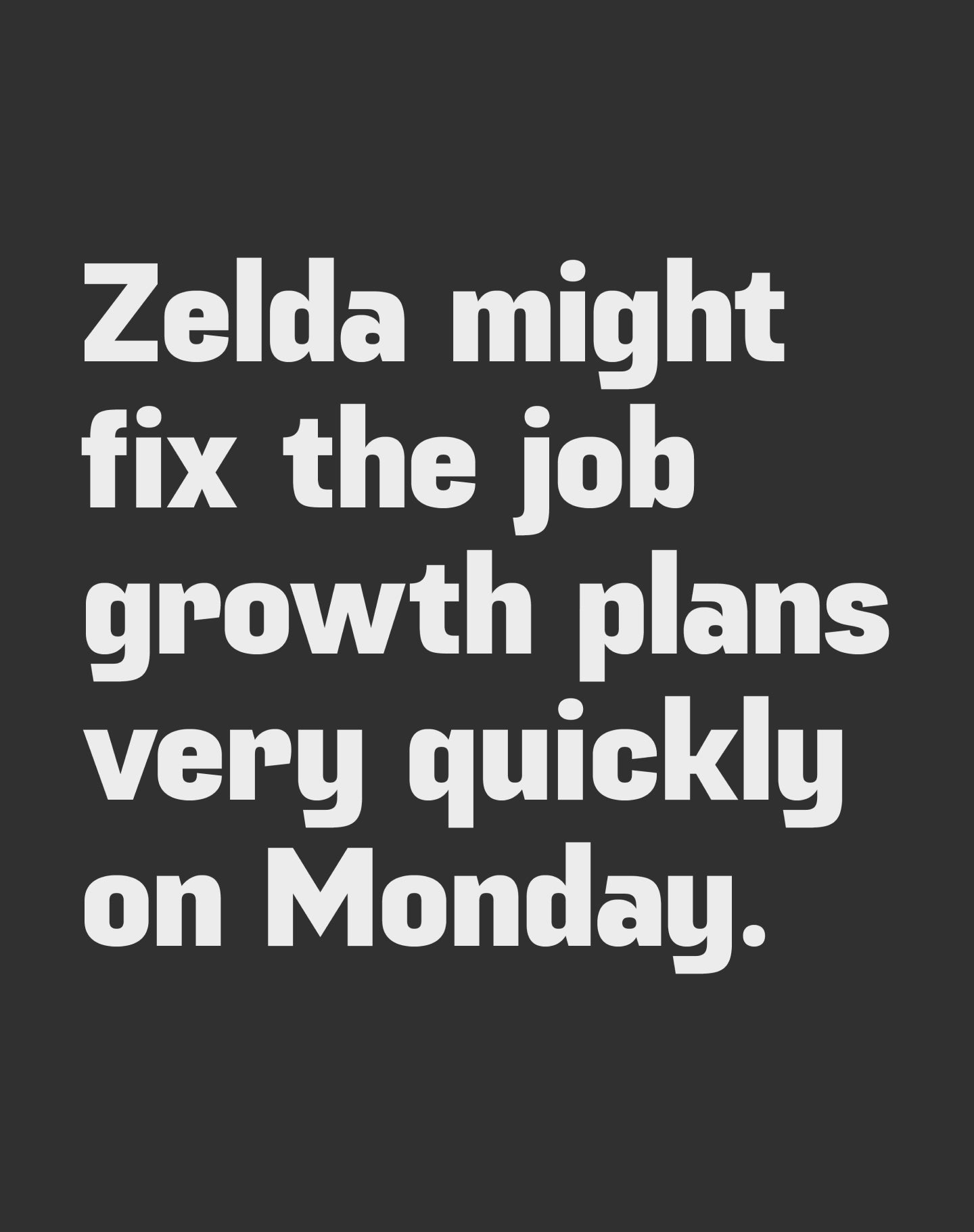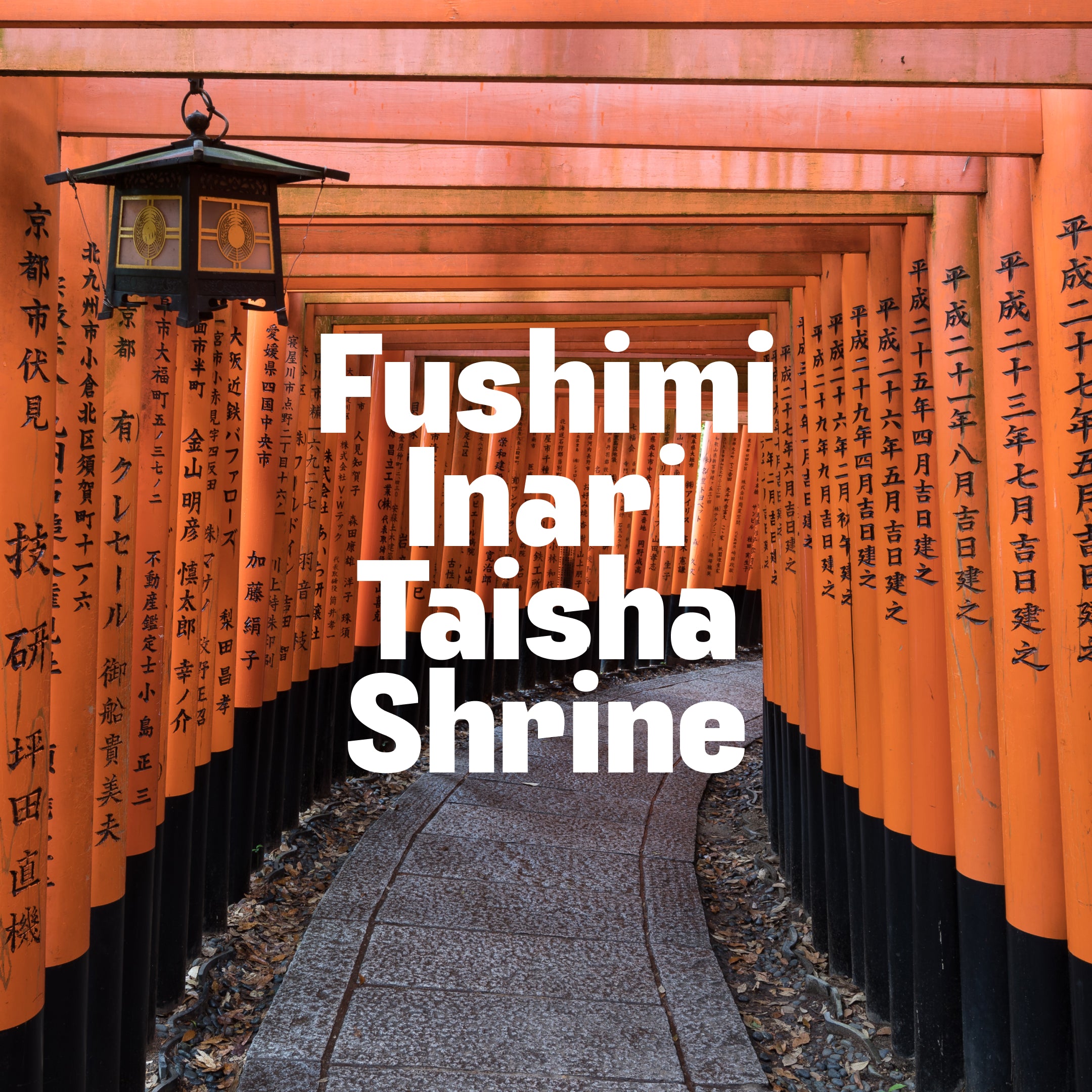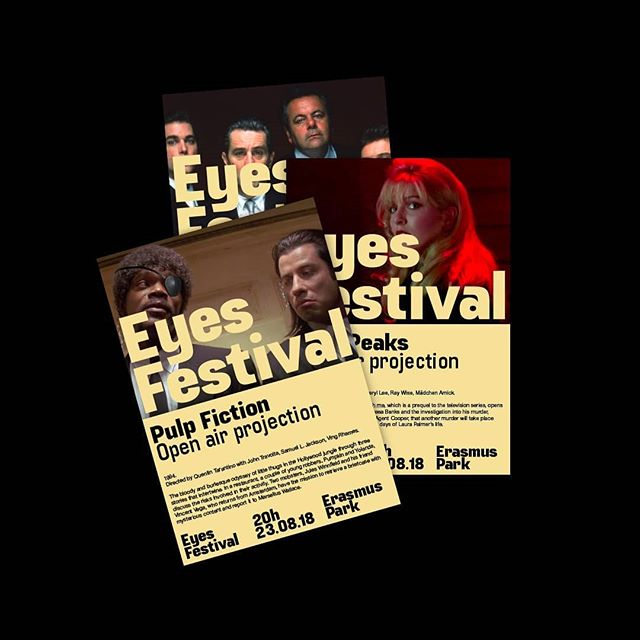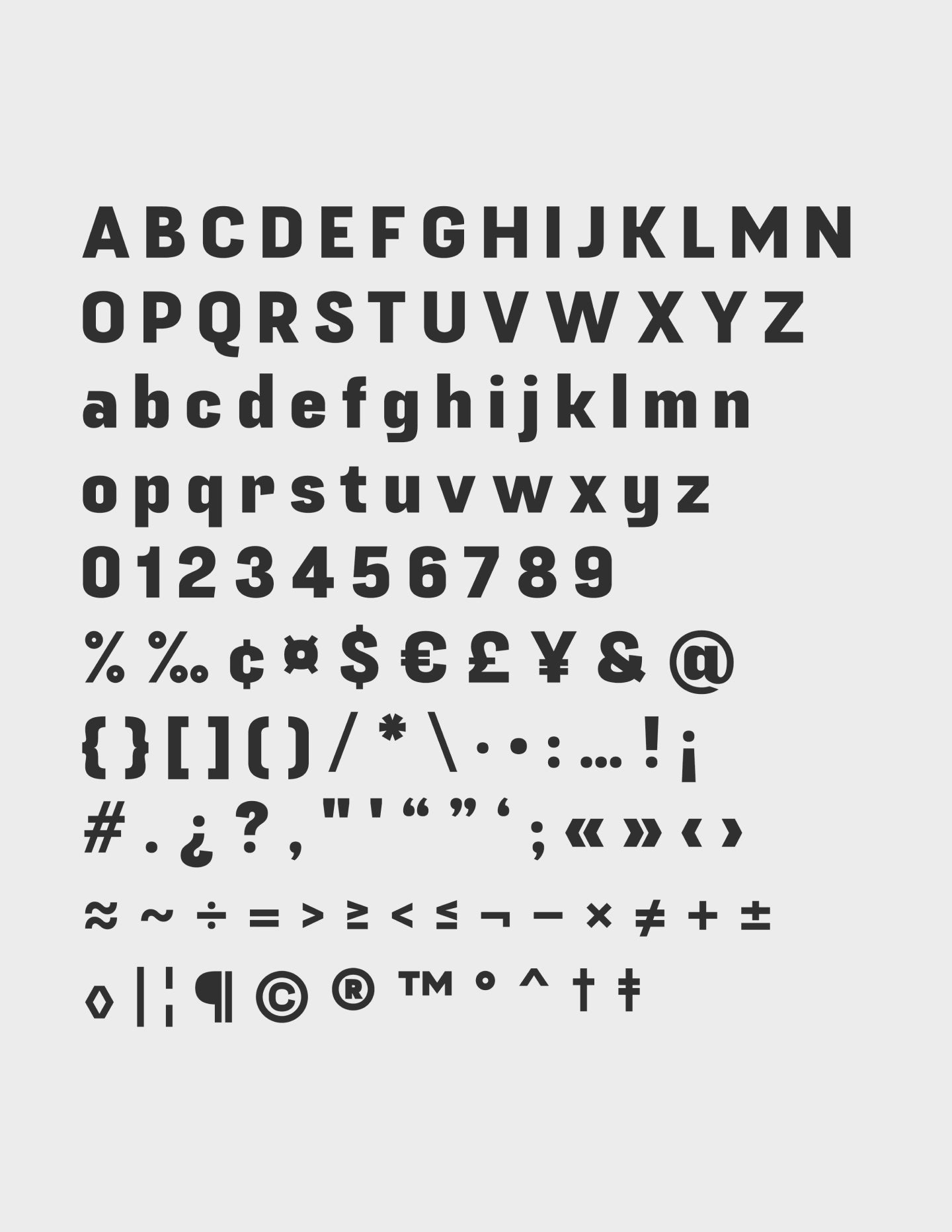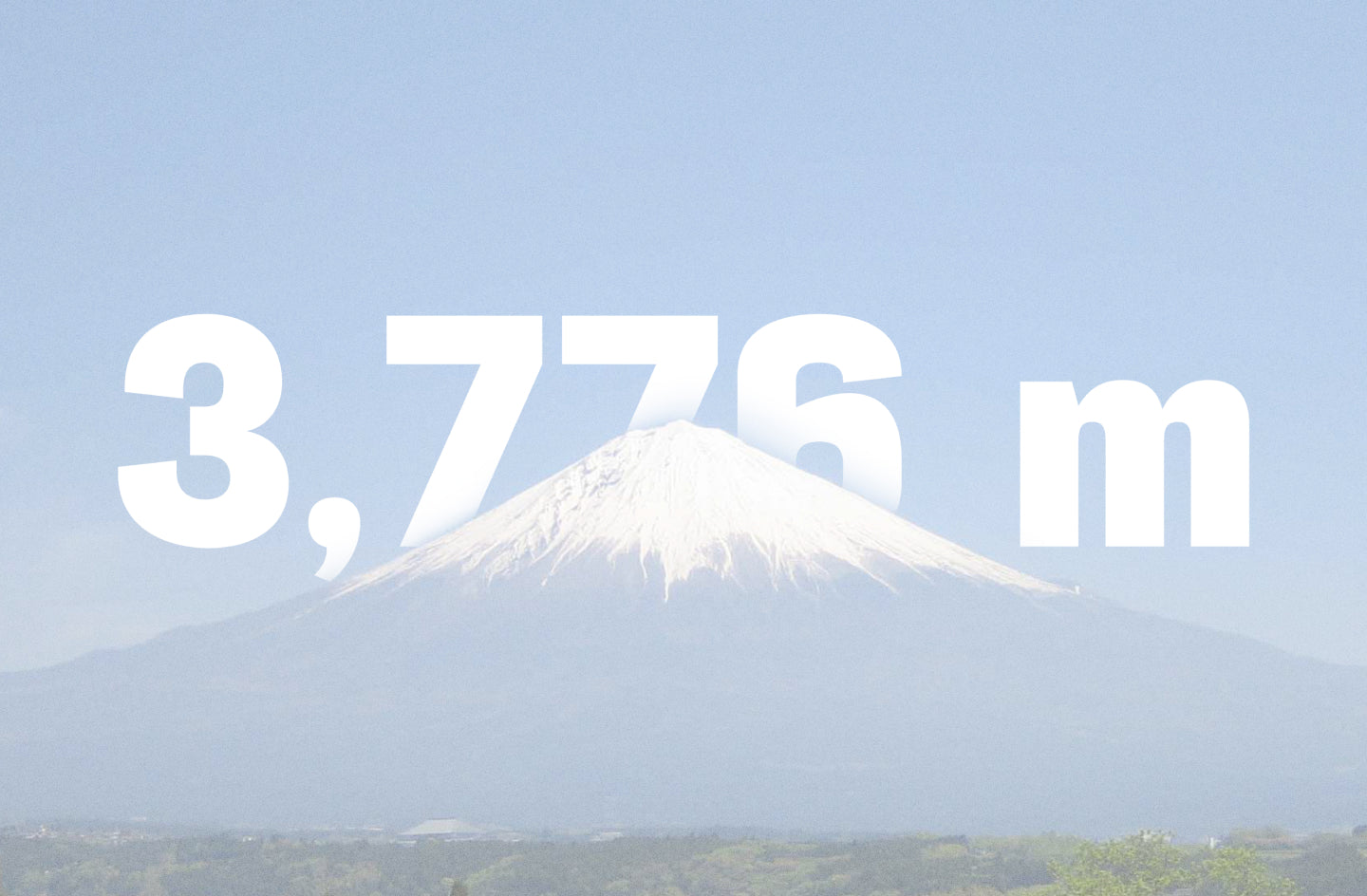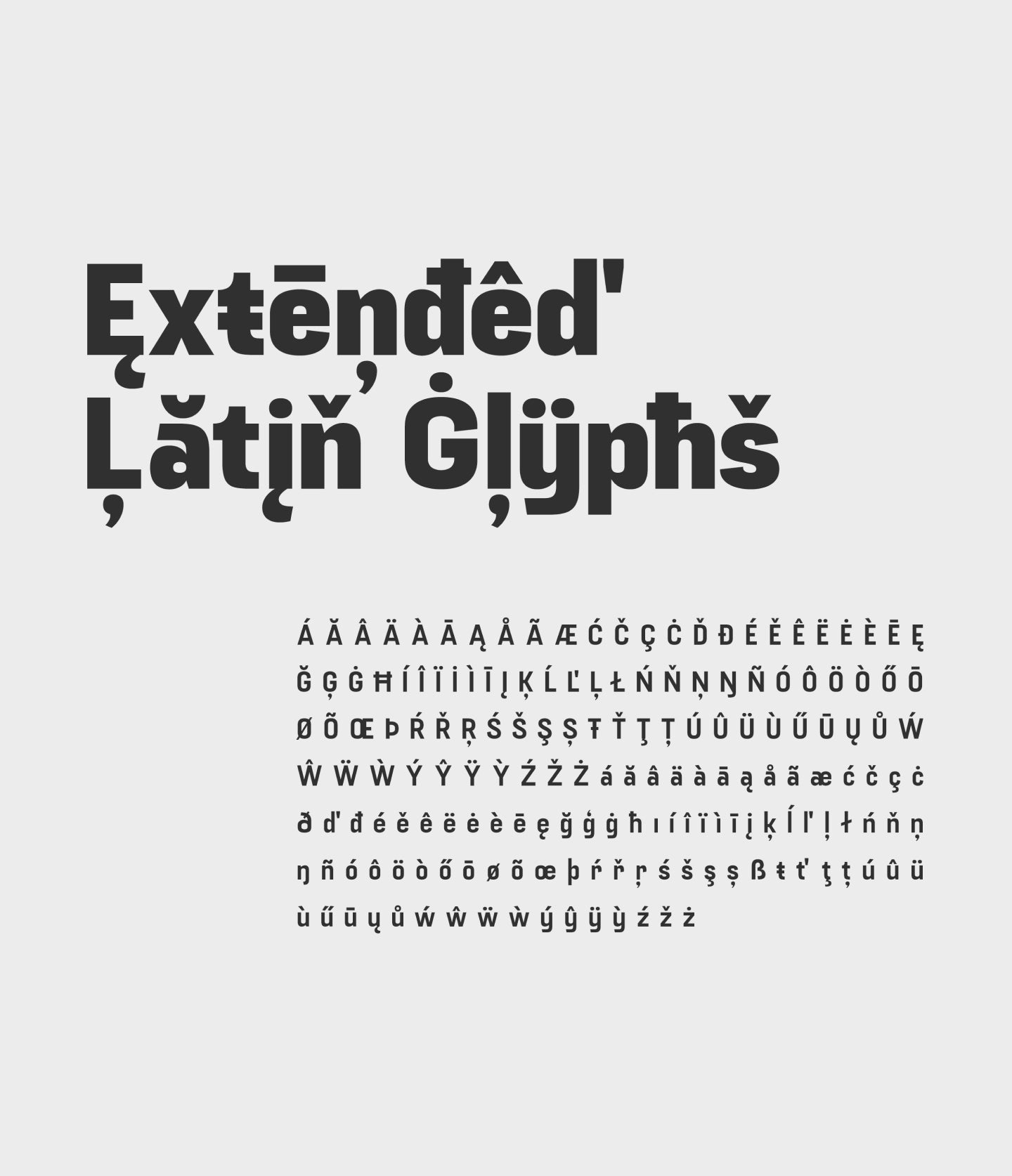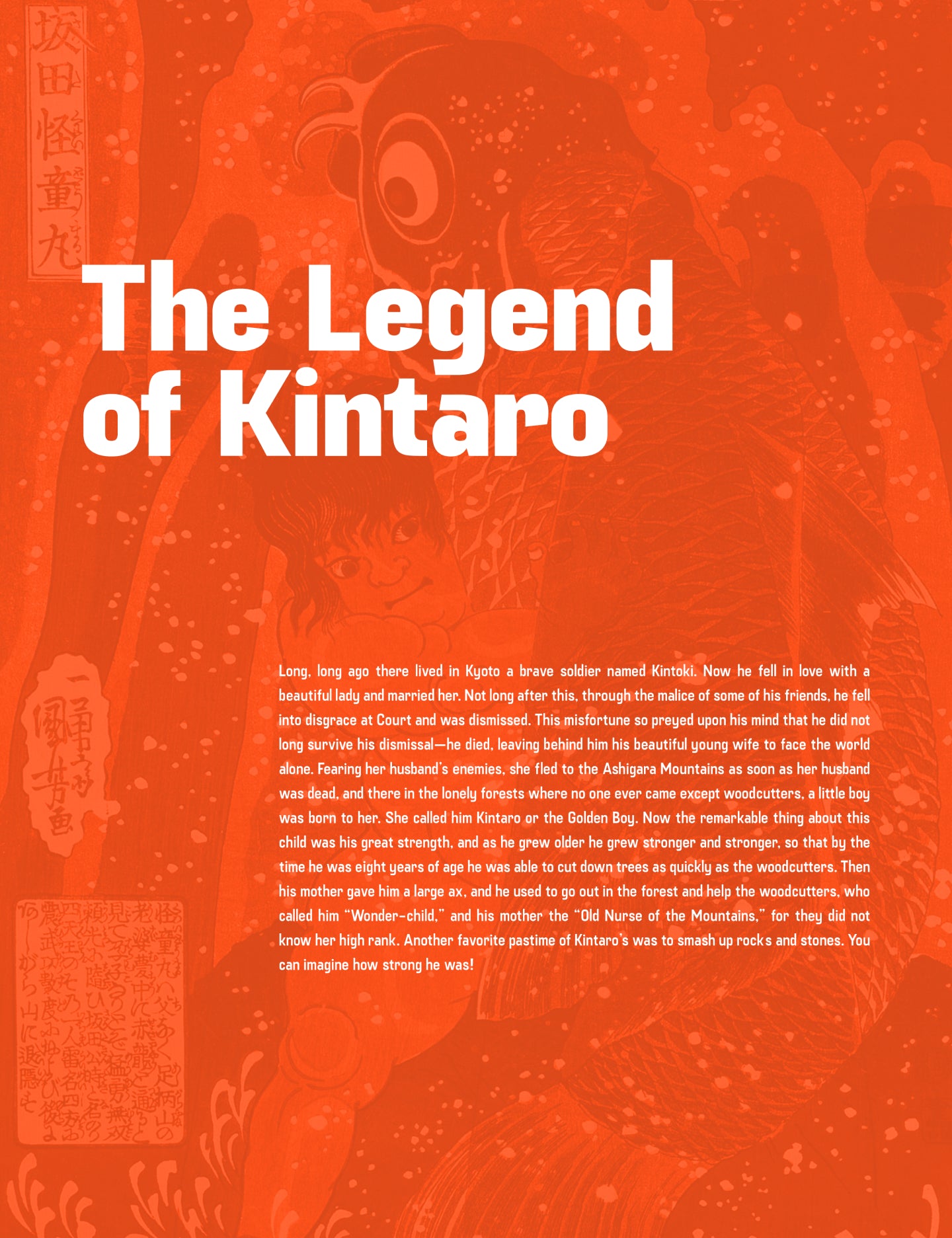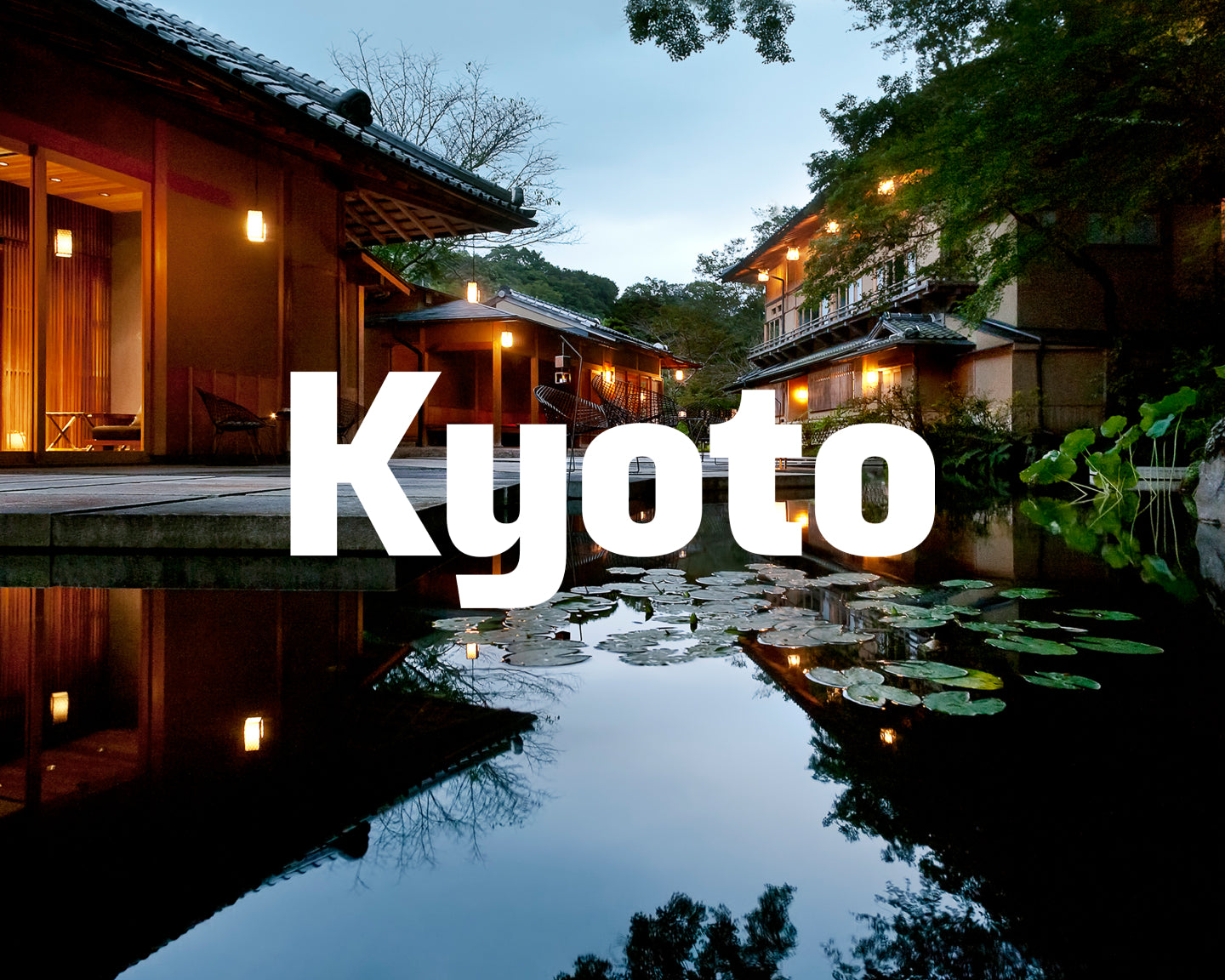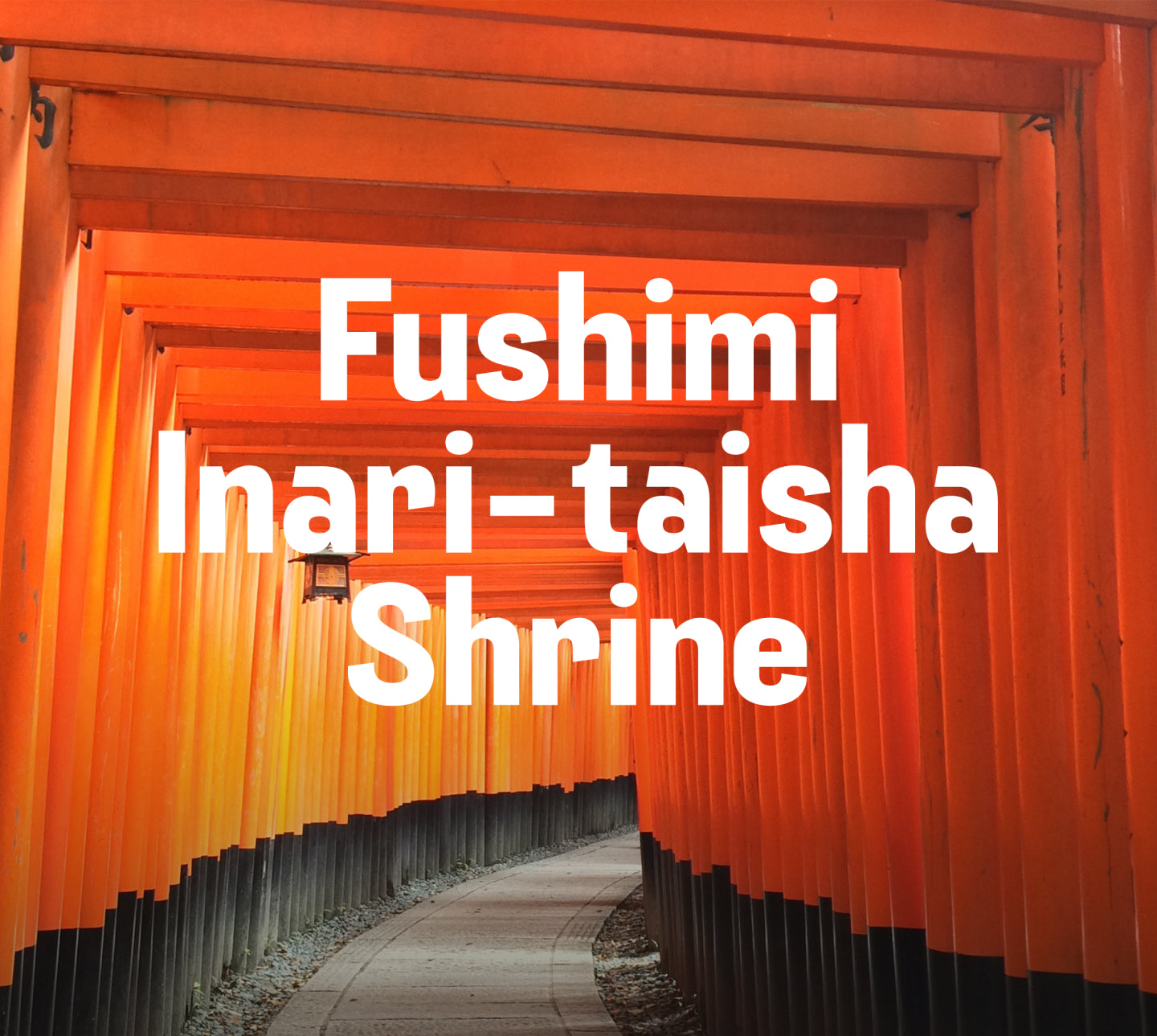
Fuji Sans
Strength in simplicity. Beauty in form.
Fuji Sans
Inspired by Japanese clarity. Built for bold design.
Fuji Sans
Fuji Sans is a bold sans-serif grotesk typeface inspired by the quiet strength and refined beauty of Japanese design heritage. Named after Mount Fuji, a symbol of balance, endurance, and natural perfection, this typeface embodies those same qualities in typographic form.
Fuji Sans
Its slightly condensed proportions and structured curves give Fuji Sans a commanding presence, making it ideal for brand identities, editorial headlines, posters, and digital interfaces where clarity and confidence are key. The geometry feels grounded yet graceful—much like the visual language of traditional Japanese architecture or calligraphy, where every stroke carries purpose. Fuji Sans doesn't rely on ornamentation—it speaks through form, proportion, and restraint. This makes it highly versatile: bold enough to lead in logotypes or hero sections, clean enough to support UX and packaging, and modern enough to work across languages and markets. For designers seeking a modern grotesk font that fuses minimalism with subtle personality, Fuji Sans delivers the perfect balance—precision without coldness, power without excess.
Fuji Sans is variable
Fuji Sans
Strength in simplicity. Beauty in form.
Fuji Sans is a beautiful bold sans-serif grotesk. Its slightly condensed feature and structured curves make this font a perfect fit for those bold designs and brands.